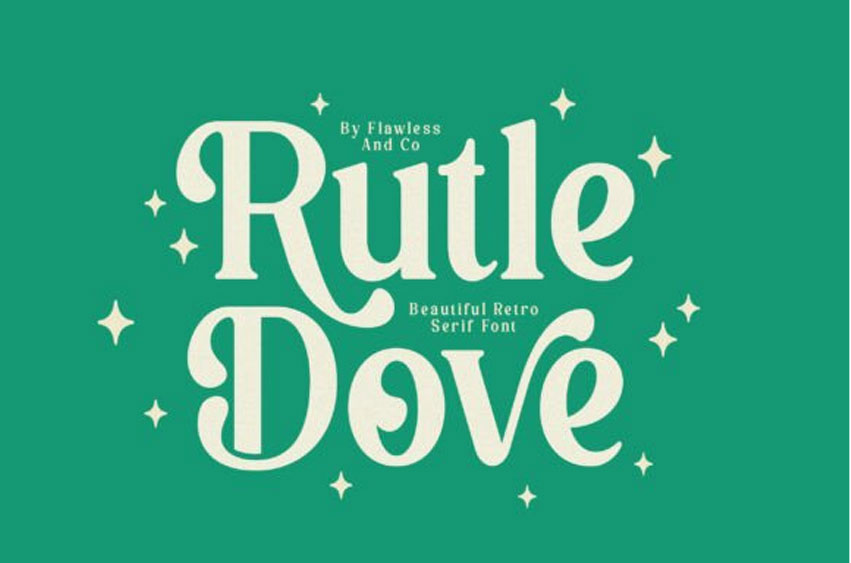
Rutle Dove Font is a retro serif font that beautifully captures the charm of vintage typography with a fresh contemporary spirit. Featuring soft curves, serif details, and gracefully sculpted letterforms, Rutle Dove brings warmth, nostalgia, and elegance into every design.
Its distinctive retro character creates typography that feels both timeless and inviting, making it the perfect choice for creatives who want to evoke classic beauty with a modern twist.